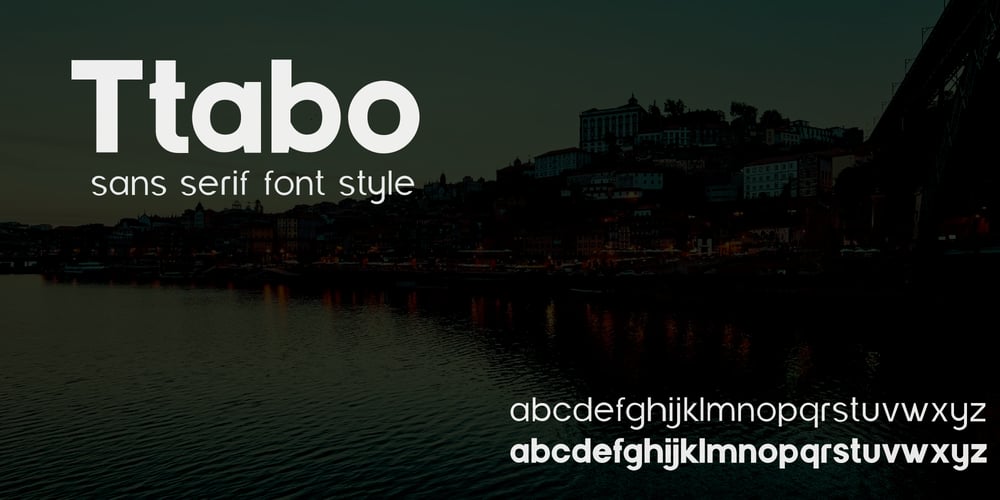
Ttabo
Ttabo font
Ttabo Font Family was designed by Mohammad Teguh and published by Starone Project. Ttabo contains 2 styles and family package options. Ttabo, designed by Mohammad Teguh, currently features two font styles and is expected to introduce an additional style shortly. It is a geometric sans serif font distinguished by the unique presentation of each style.